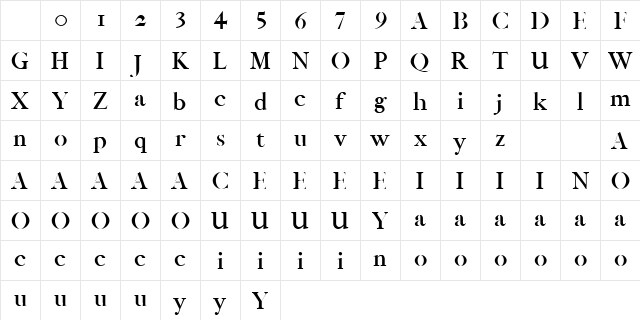
Complete Abed Bold Demo Regular glyph index. Displaying only characters natively supported by Abed Bold Demo Regular font.
Abed Bold Demo is a composed and adaptable typeface that performs quietly and consistently across a wide range of design contexts. Its bold stroke weight gives it real presence on the page.